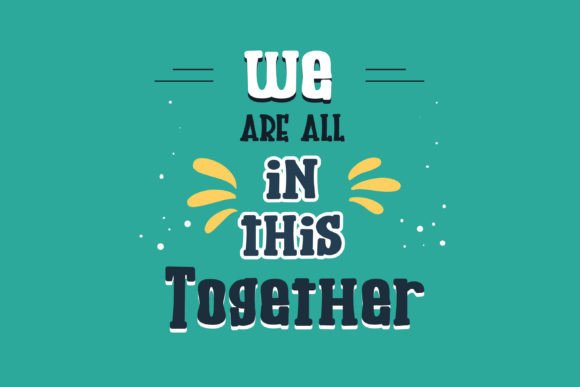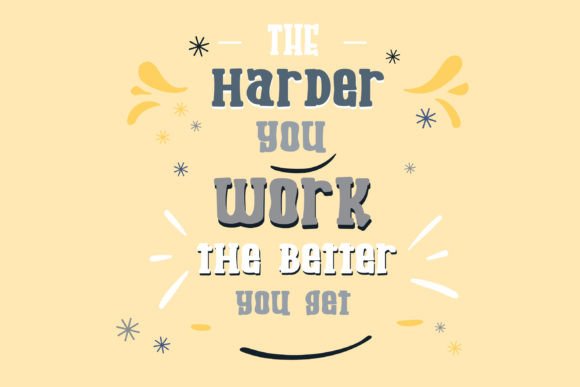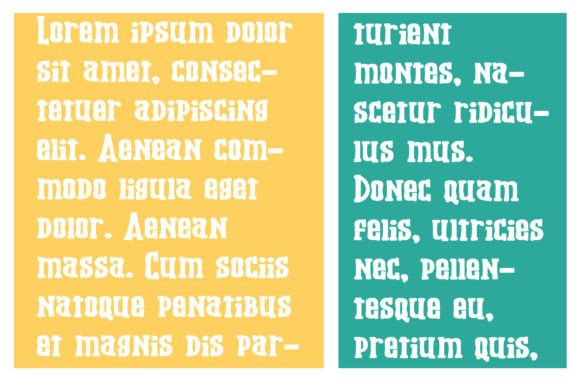
Introduction to Nincaboodle Font
Have you ever been browsing through a design market, searching for the perfect font to give your project that extra oomph? You stumble upon a quirky display font that makes you go ‘aha!’ and suddenly, all the creative possibilities start swirling in your head. This is exactly what happens when you come across the enchanting Nincaboodle Font – a high-quality design resource that will leave you wanting more.
As a designer, you understand the value of having the right tools at your disposal. A well-chosen font can make or break a creative project, and with Nincaboodle Font, you’ll be able to add a touch of whimsy and fun to your designs. Whether you’re working on a free download or a paid project, this font is sure to bring a smile to your viewer’s face.
Key Features of Nincaboodle Font
- High-quality design resource for creative projects, offering a unique and stylish aesthetic.
- Includes a transparent background, allowing for seamless integration into various design elements.
- Features a high-resolution design, ideal for use in print and digital applications.
- Unique characteristics include a distinctive font style and a wide range of customizable options.
Honest Review: Nincaboodle Font
As a designer, I’m always on the lookout for high-quality design resources to elevate my creative projects. Recently, I stumbled upon the Nincaboodle Font, and I’m excited to share my honest review with you.
What works well: ✨ The Nincaboodle Font is a beautiful, unique font that adds a touch of whimsy to any design. Its playful, handwritten feel is perfect for creative projects that require a bit of personality. The font is also available as a free download, making it an excellent resource for designers on a budget.
- Unique, handwritten feel
- Perfect for creative projects
However, I do have a few limitations to mention: ⚠️ The font may not be suitable for formal or professional projects, as it can come across as too casual. Additionally, the font’s transparency options could be improved, making it difficult to use with transparent backgrounds.
Overall, I’m impressed with the Nincaboodle Font’s unique charm and versatility. While it may not be suitable for every project, it’s an excellent addition to any designer’s toolkit. If you’re looking for a fun, creative font to spice up your designs, the Nincaboodle Font is definitely worth checking out.
Tips for Getting the Most Out of Nincaboodle Font
Use Nincaboodle Font for high-quality, creative projects that require a unique and stylish touch. This font is perfect for headings, titles, and other text elements where you want to make a statement. To get the most out of this font, use it in conjunction with a transparent background to create a sleek and modern design.
Nincaboodle Font is a versatile design resource that can be used in a variety of creative projects, including:
- Brochures and flyers
- Posters and social media graphics
- Web design and e-commerce websites